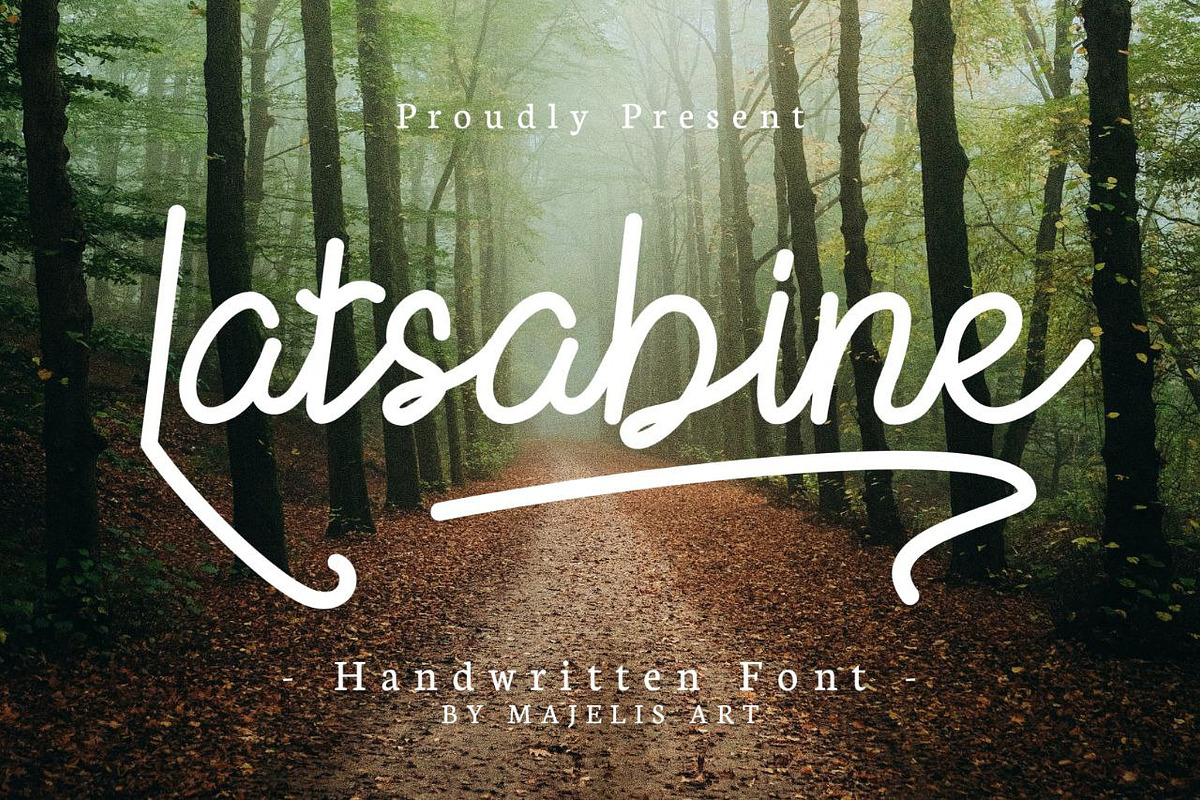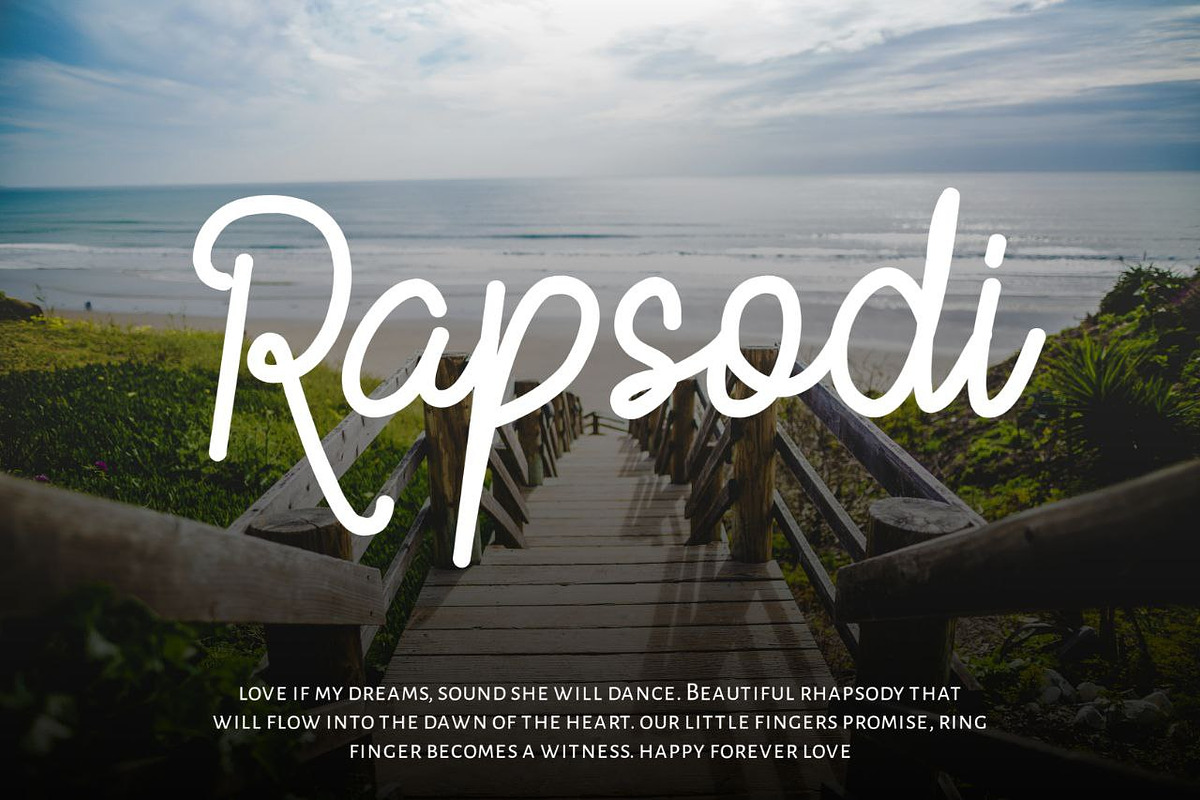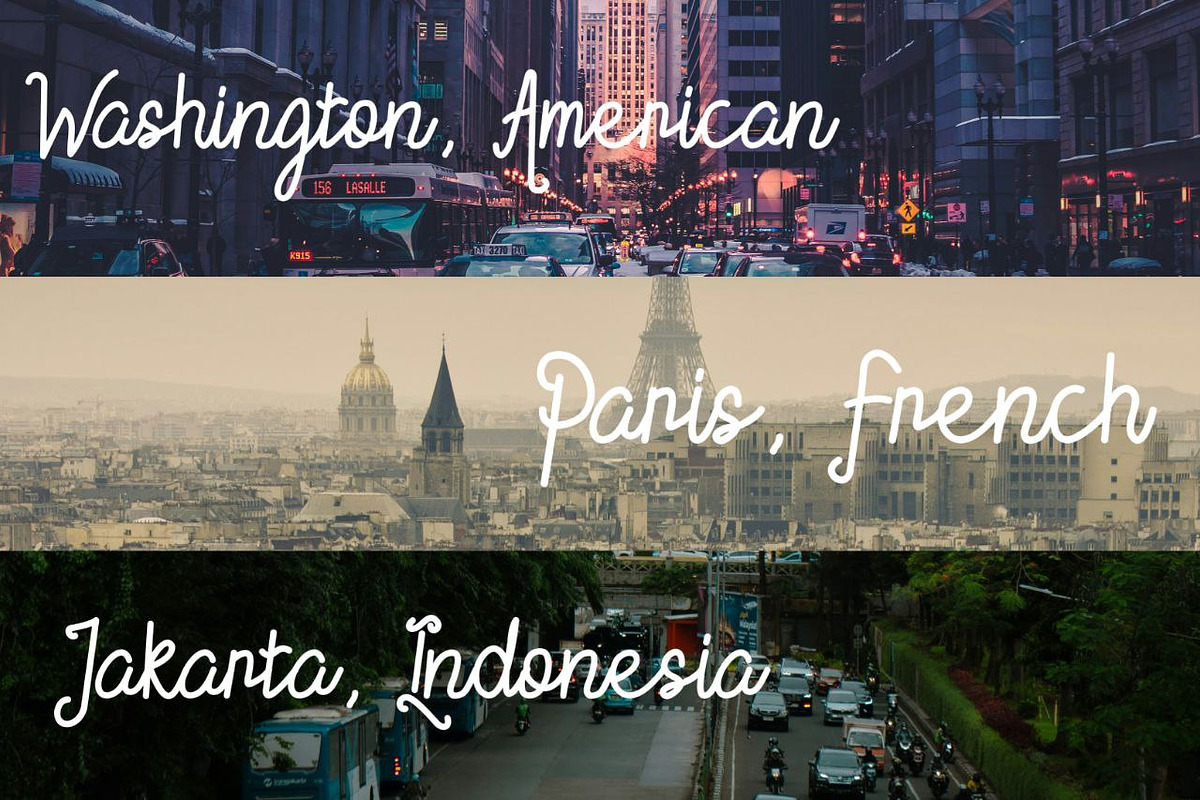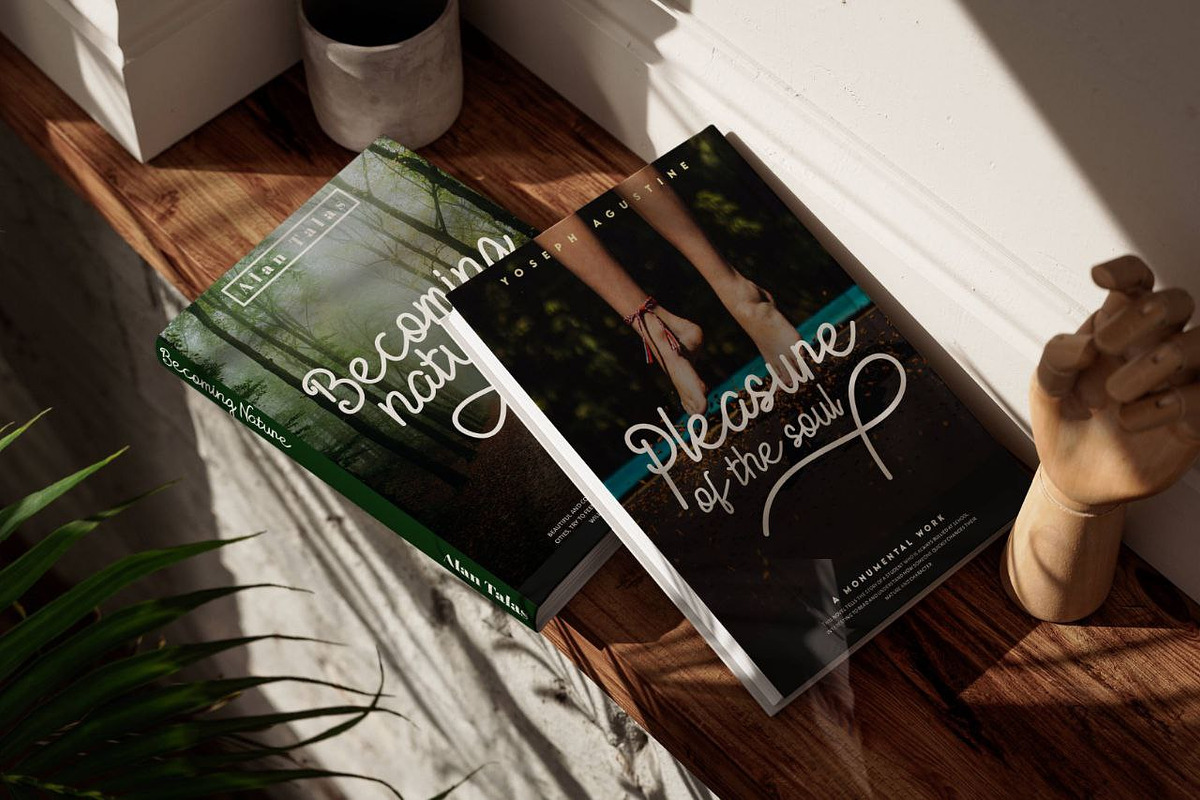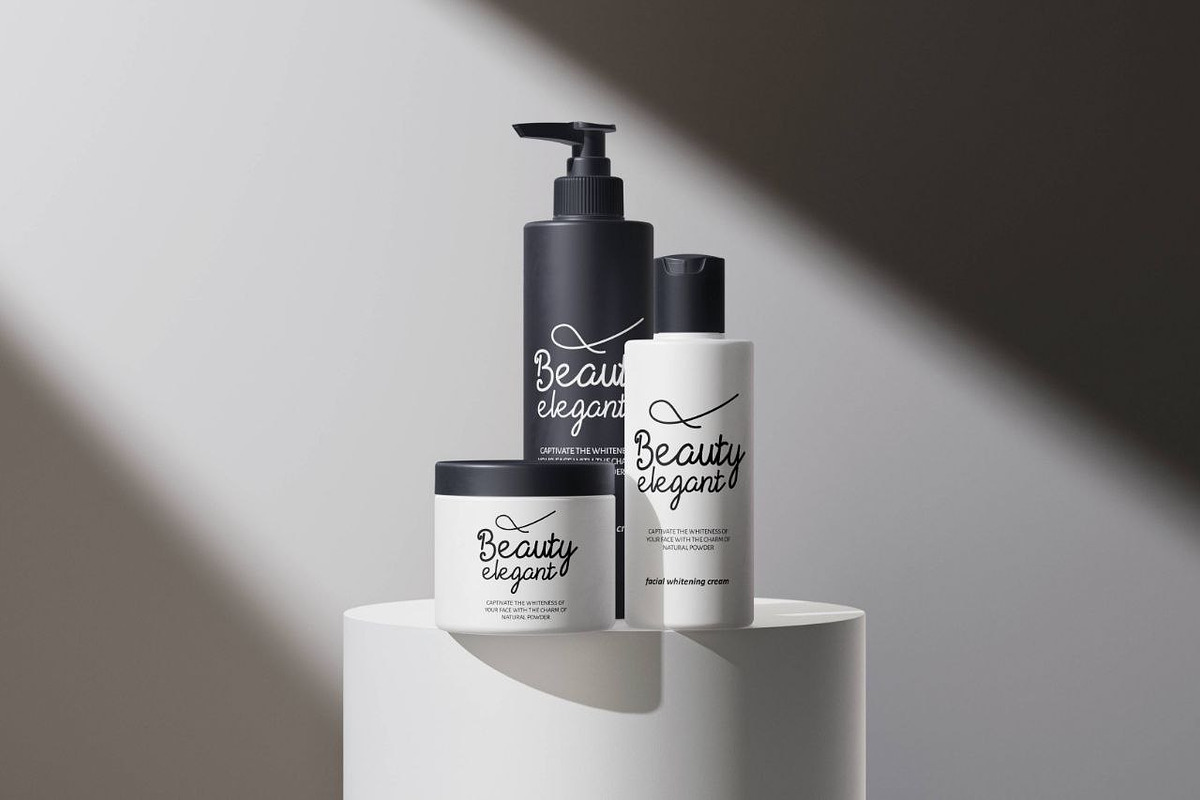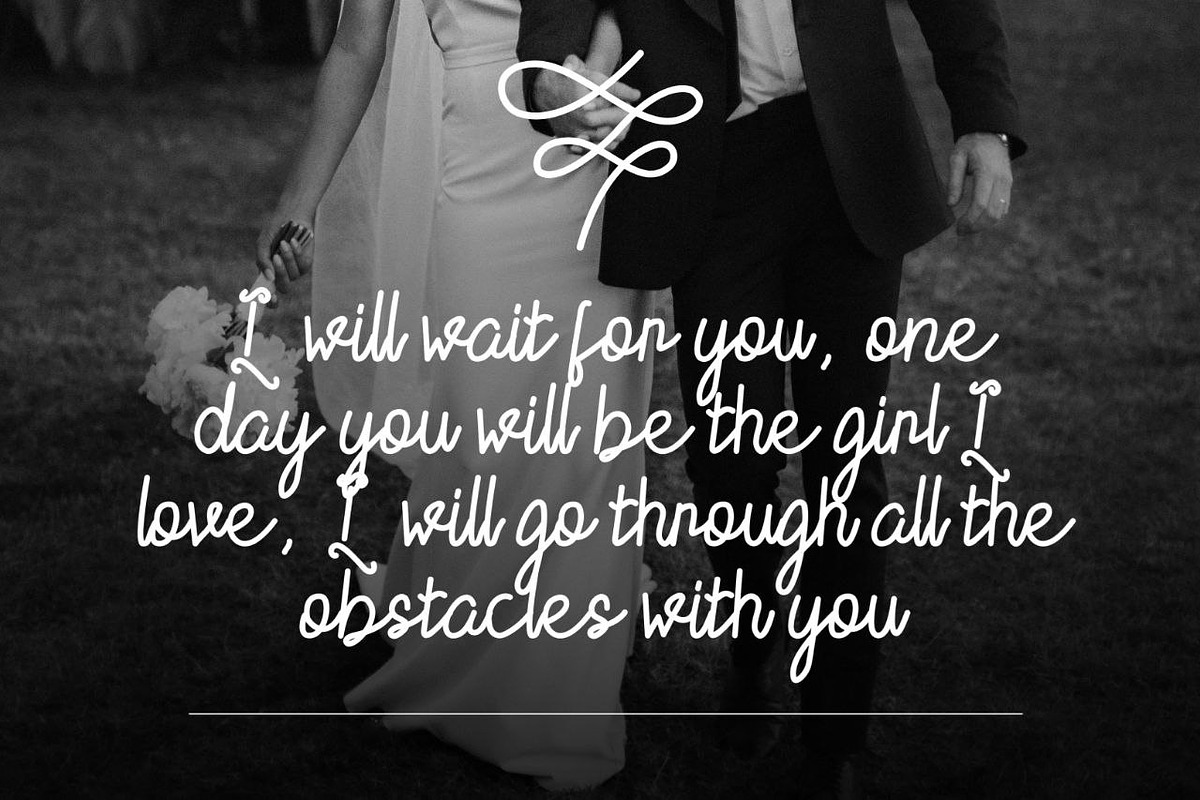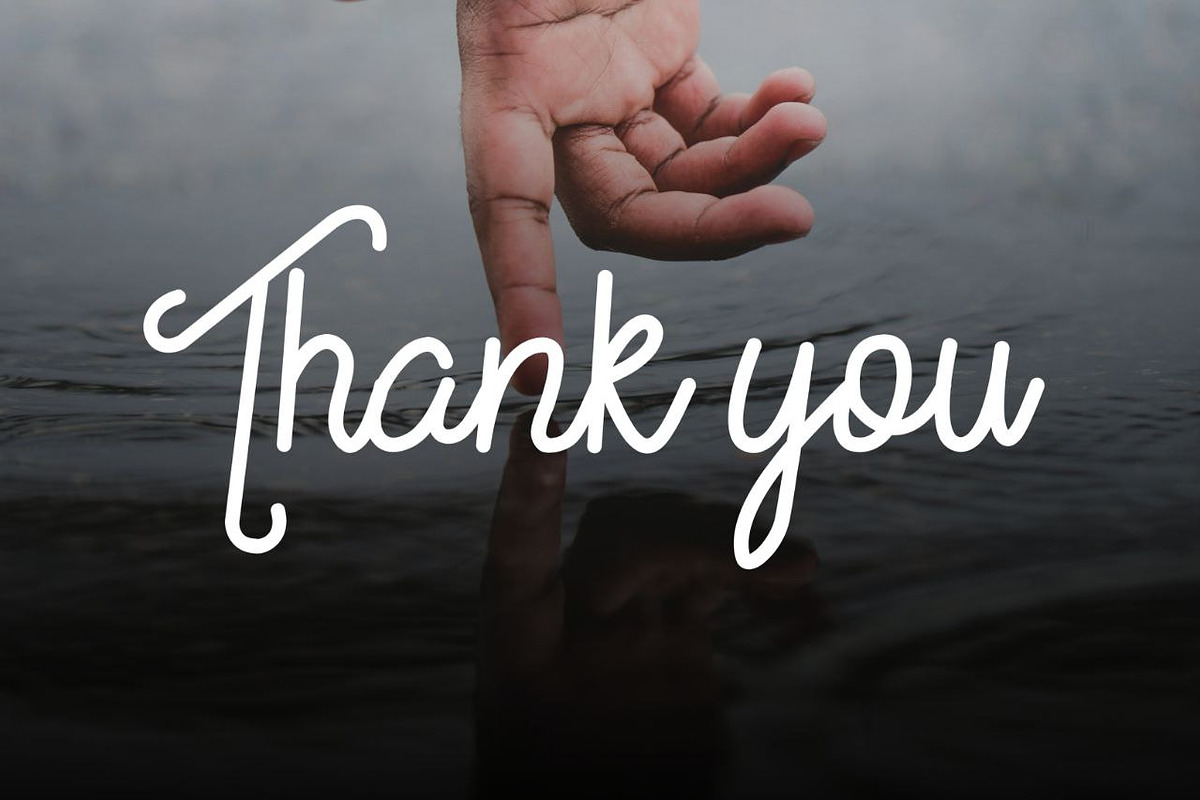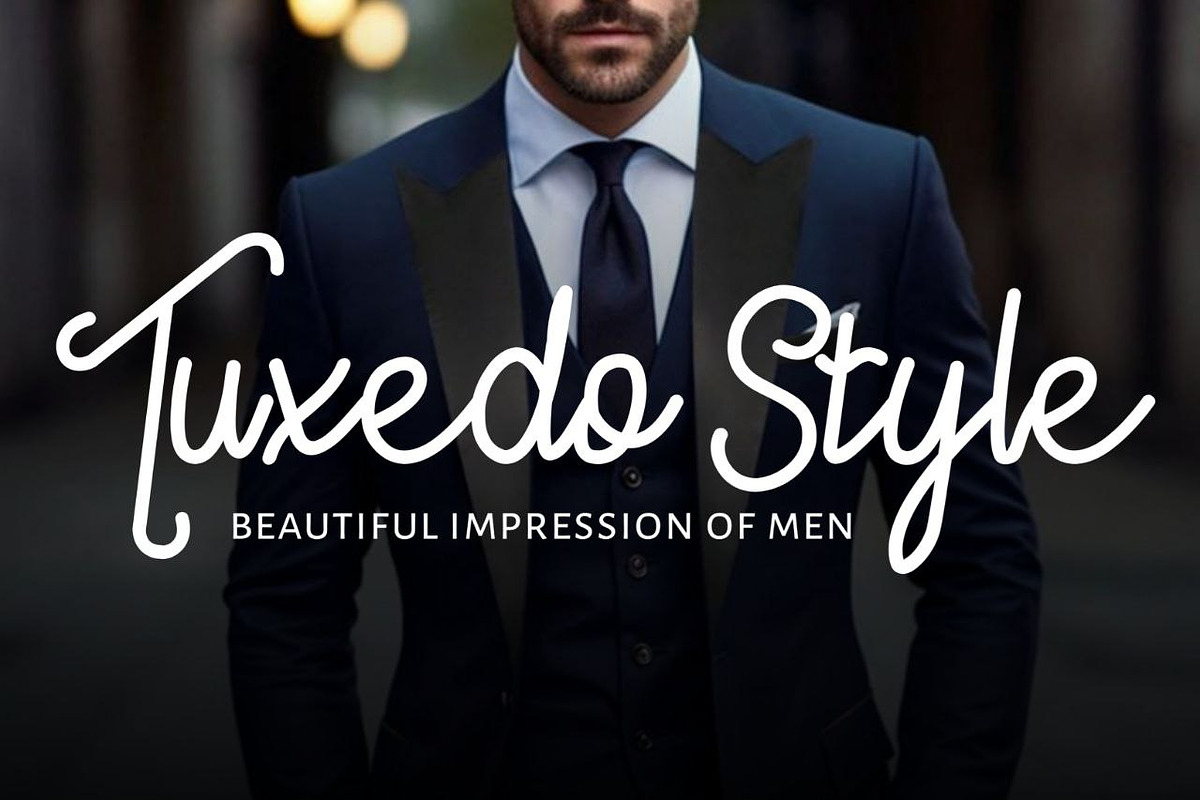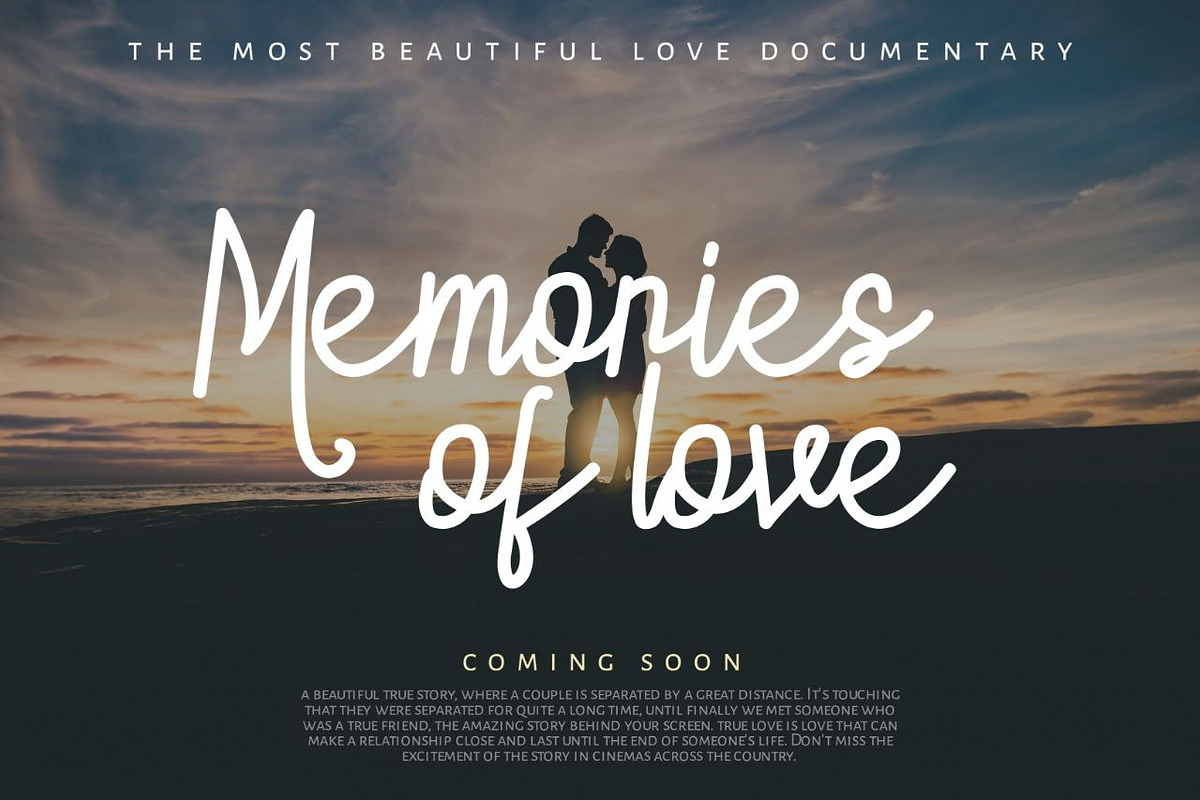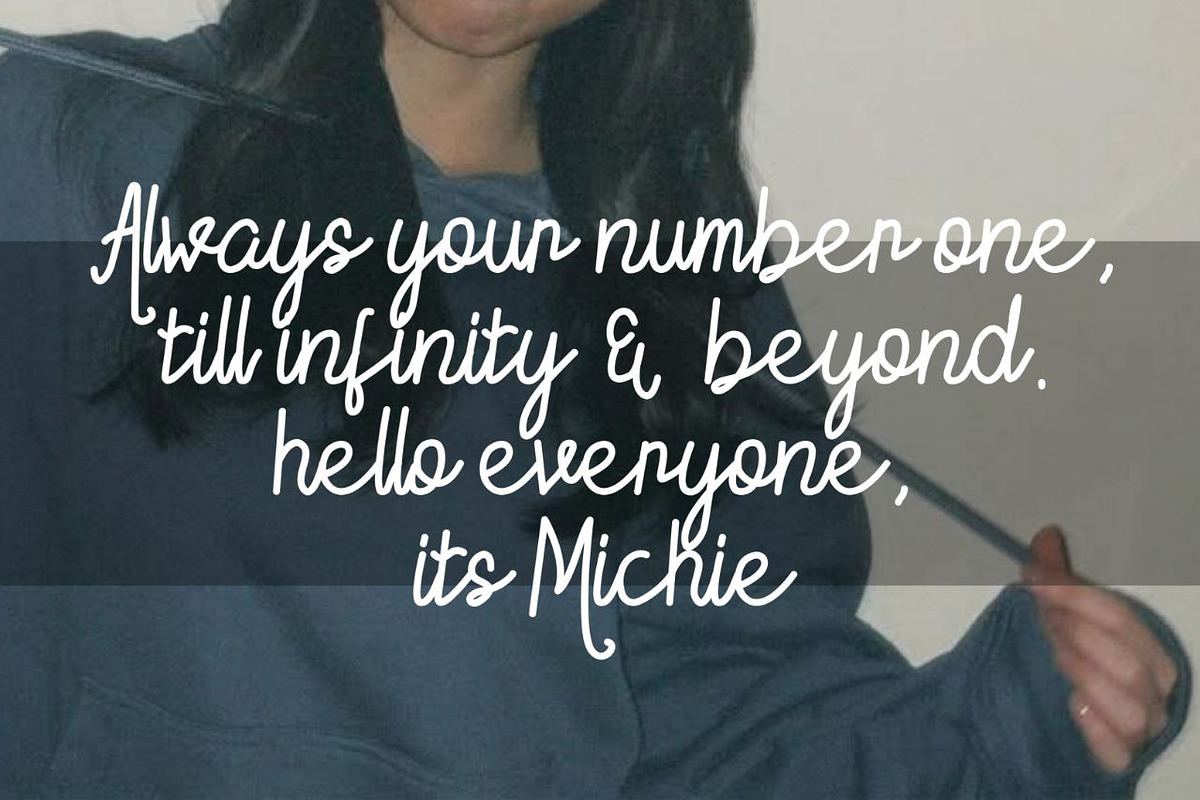
Latsabine
This font is elegant and simple but comfortable to look at, We make it with a little hand carving to maintain the authenticity of the script writing.
This font is very suitable for naming a film, product advertisements, company brands, book covers, and commercial posters on products.
- And Special swash